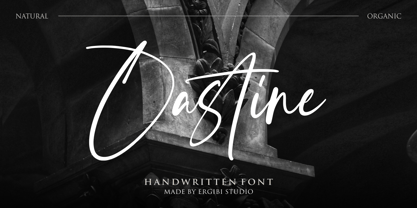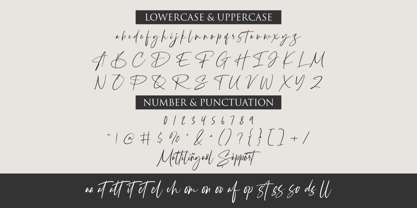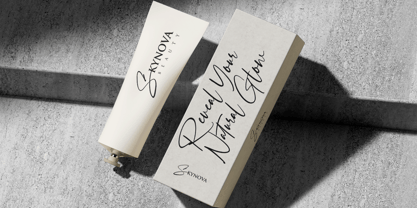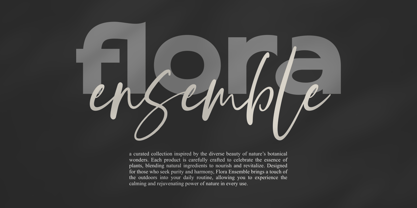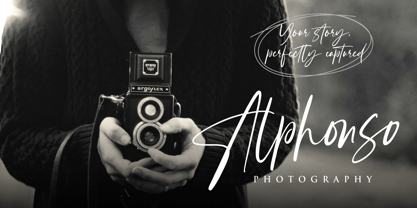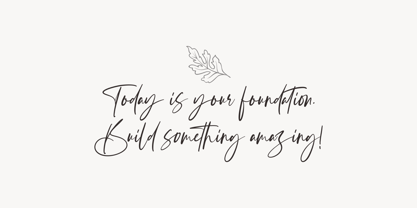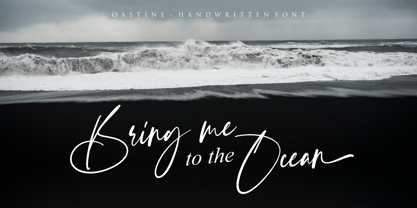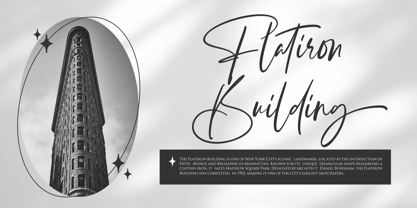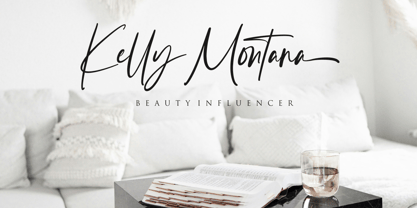
Oastine
by Ergibi Studio
The Oastine Font Family was designed by Riyadh Rahman and published by Ergibi Studio. Oastine contains 1 styles.
Oastine handwriting, bringing a warm and organic feel to your designs. Each letter flows naturally, with smooth, gentle strokes that emulate the charm of hand-drawn script. Ideal for projects like invitations, journals, branding, and packaging, it adds a human touch that feels both authentic and expressive. "Oastine" blends the individuality of hand lettering with the practicality of a digital font, perfect for adding character and elegance to any creative project.
Designers: Riyadh Rahman
Publisher: Ergibi Studio
Foundry: Ergibi Studio